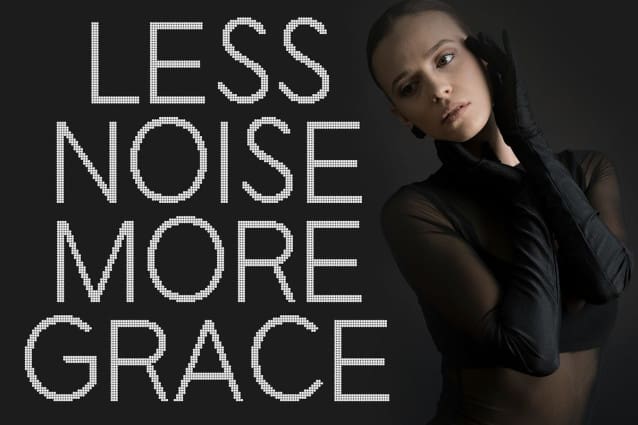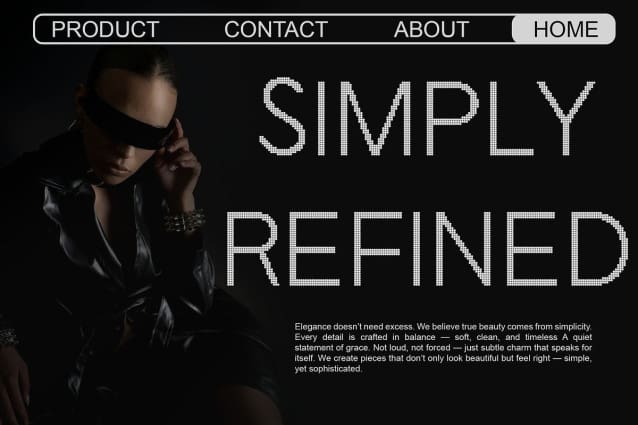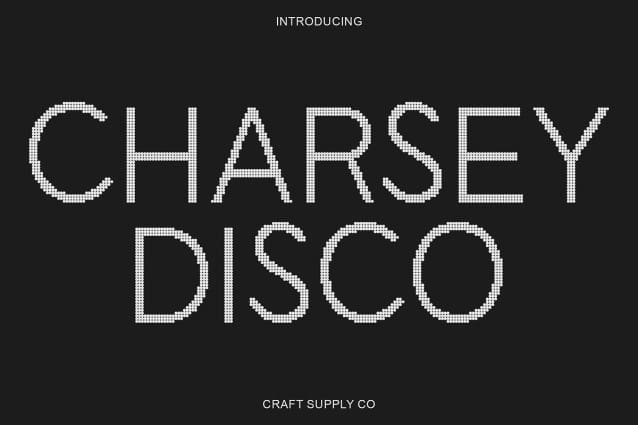
Charsey Disco Font
Charsey Disco Font : Modern Sophistication with a Sparkling Twist.Geometric Sans Serif with Disco Effect This is a modern sans serif font that merges geometric precision with a radiant disco flair. Its clean and contemporary design exudes professionalism and style, while the subtle disco effect adds a shimmering energy that elevates its minimalist appearance.
Sleek Geometry for Modern Appeal Built with carefully measured proportions, this font showcases sleek geometric forms that reflect modern design principles. Every curve and line contributes to a balanced composition that feels sophisticated yet accessible. This clarity makes it a versatile choice for branding, corporate materials, and editorial layouts seeking a sharp and modern aesthetic.
Disco Energy for Visual Excitement The addition of a disco effect introduces movement and sparkle, bringing a sense of rhythm and energy to each letter. This visual shimmer transforms Charsey Disco from a simple sans serif into a dynamic statement piece, ideal for posters, headlines, and promotional designs that need to catch the viewer’s eye with a glamorous twist.
Versatile for Stylish Applications This is modern geometry and luminous character make it suitable for a wide range of creative uses. From sleek branding concepts to expressive event designs, it effortlessly adapts to both professional and playful contexts. With its fusion of minimalist form and disco-inspired flair, delivers a fresh, stylish, and unforgettable impression in any design.